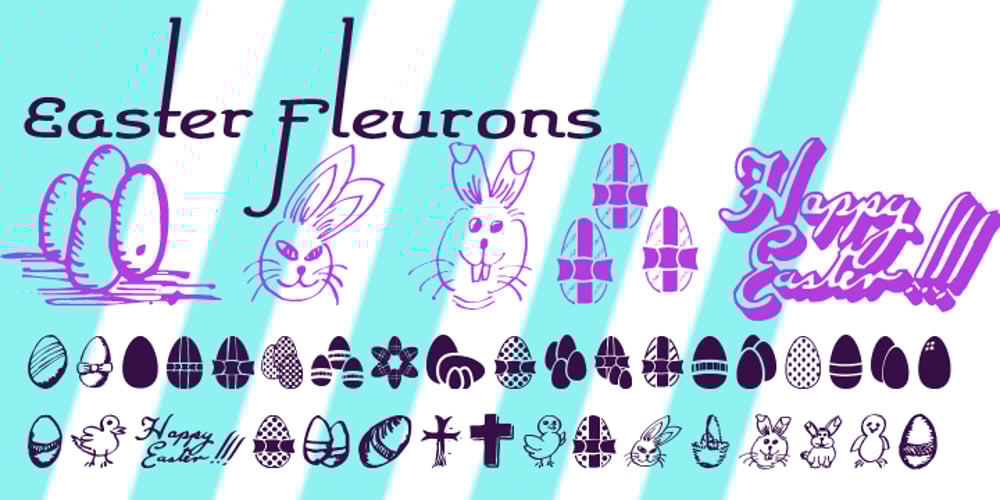
Easter Fleurons
Easter Fleurons font
Easter Fleurons Font Family was designed by Paul James Lloyd and published by Greater Albion Typefounders. Easter Fleurons contains 1 styles and family package options. These Fleurons are a bit of Easter fun, with humorous cartoon rabbits, little chicks, and lots of lovely chocolate eggs! Just the thing for that Easter card or party invitation.